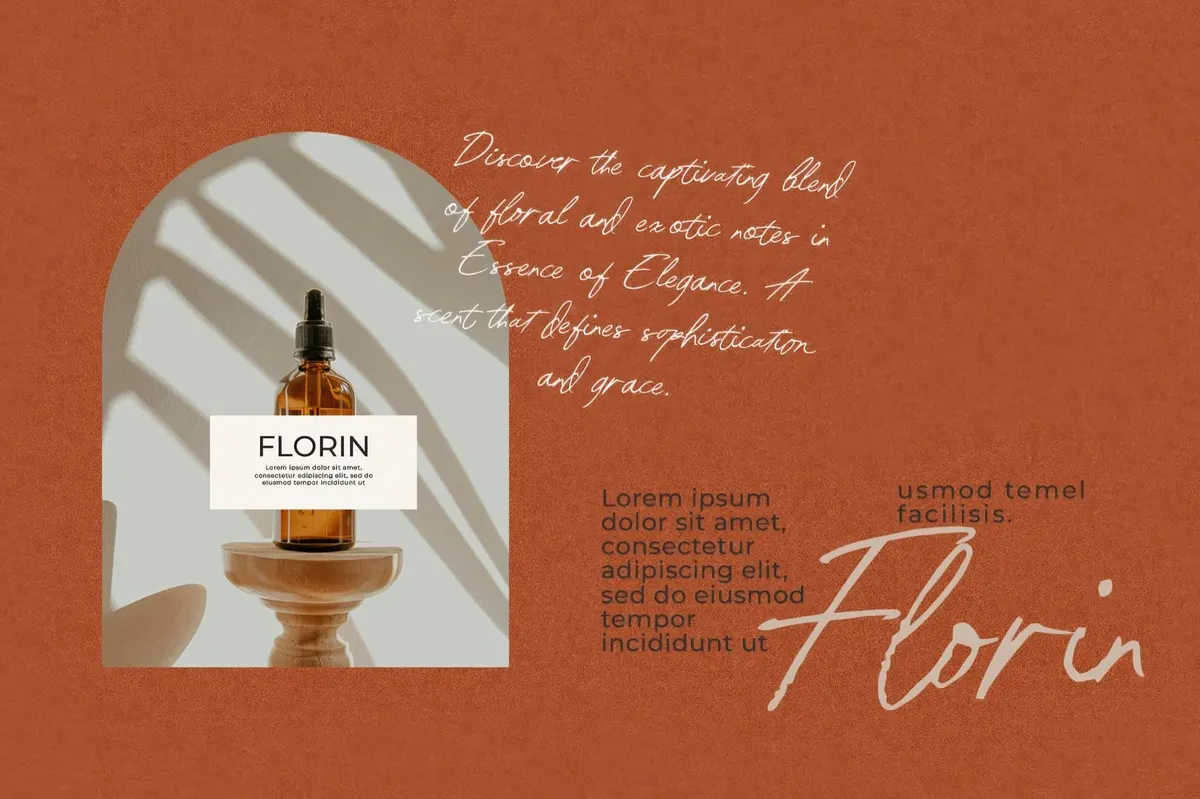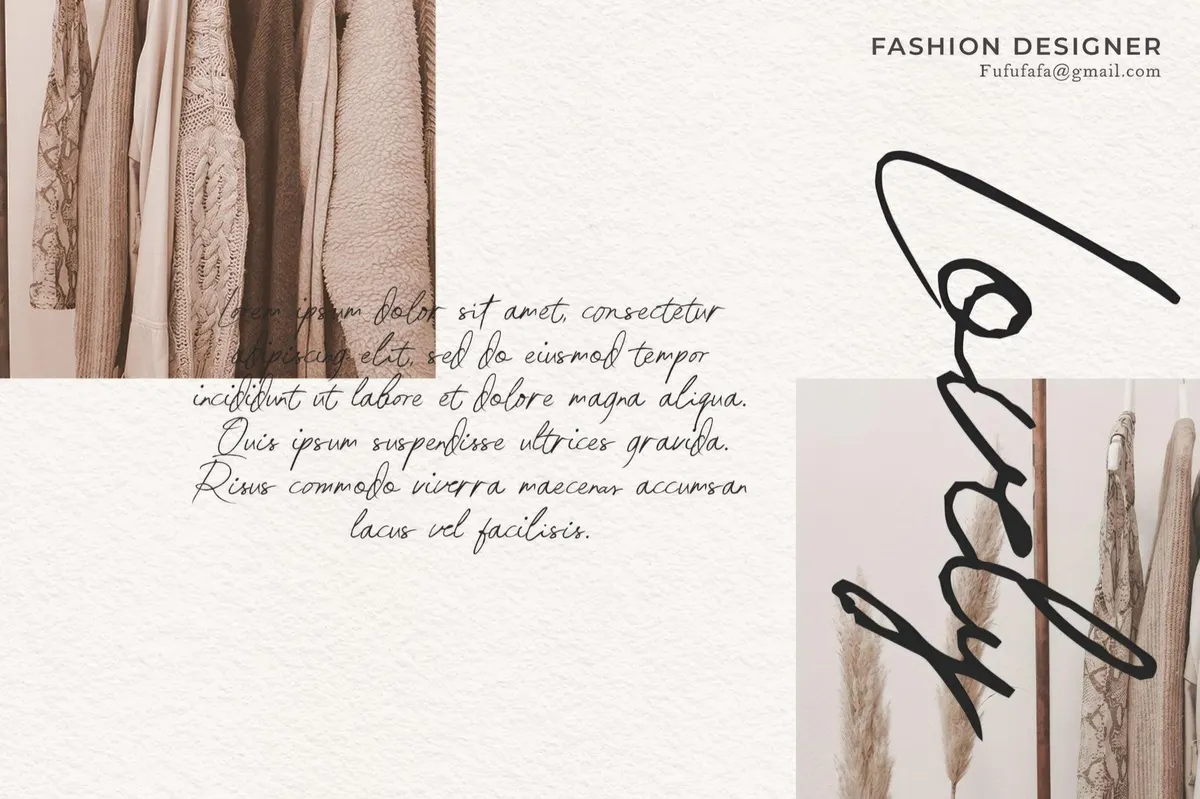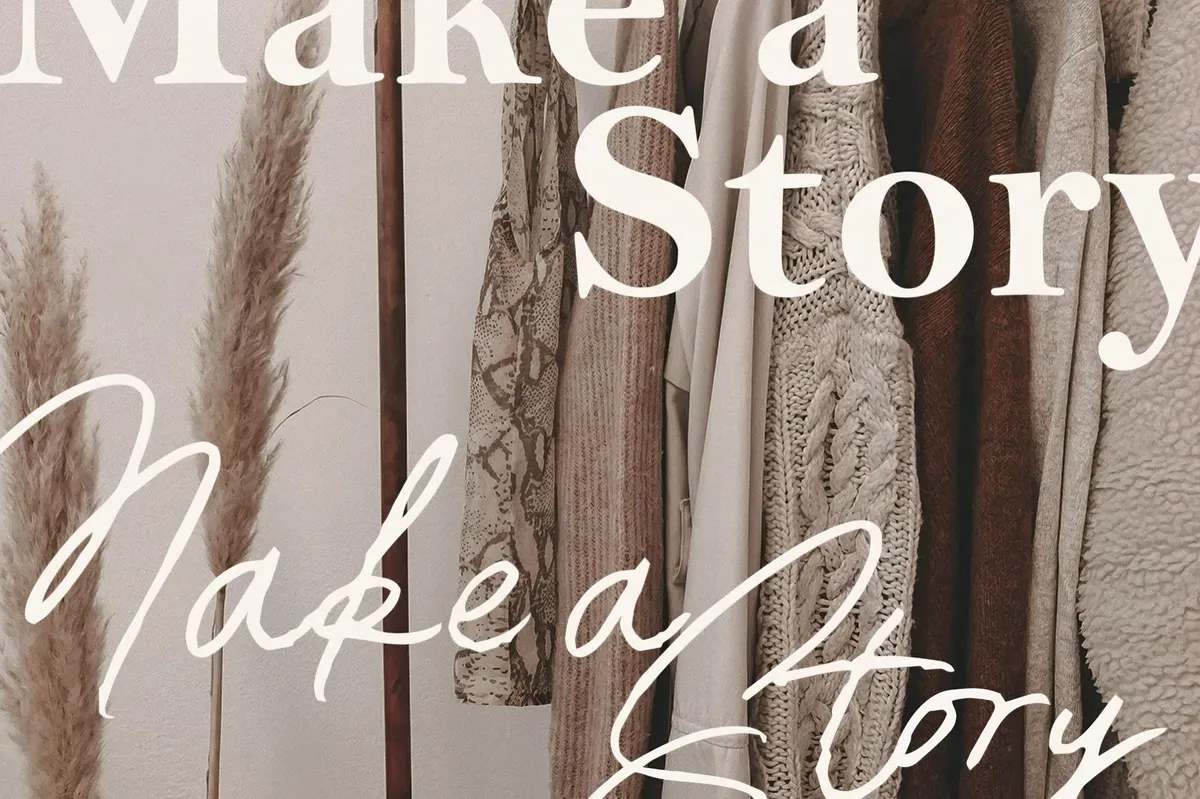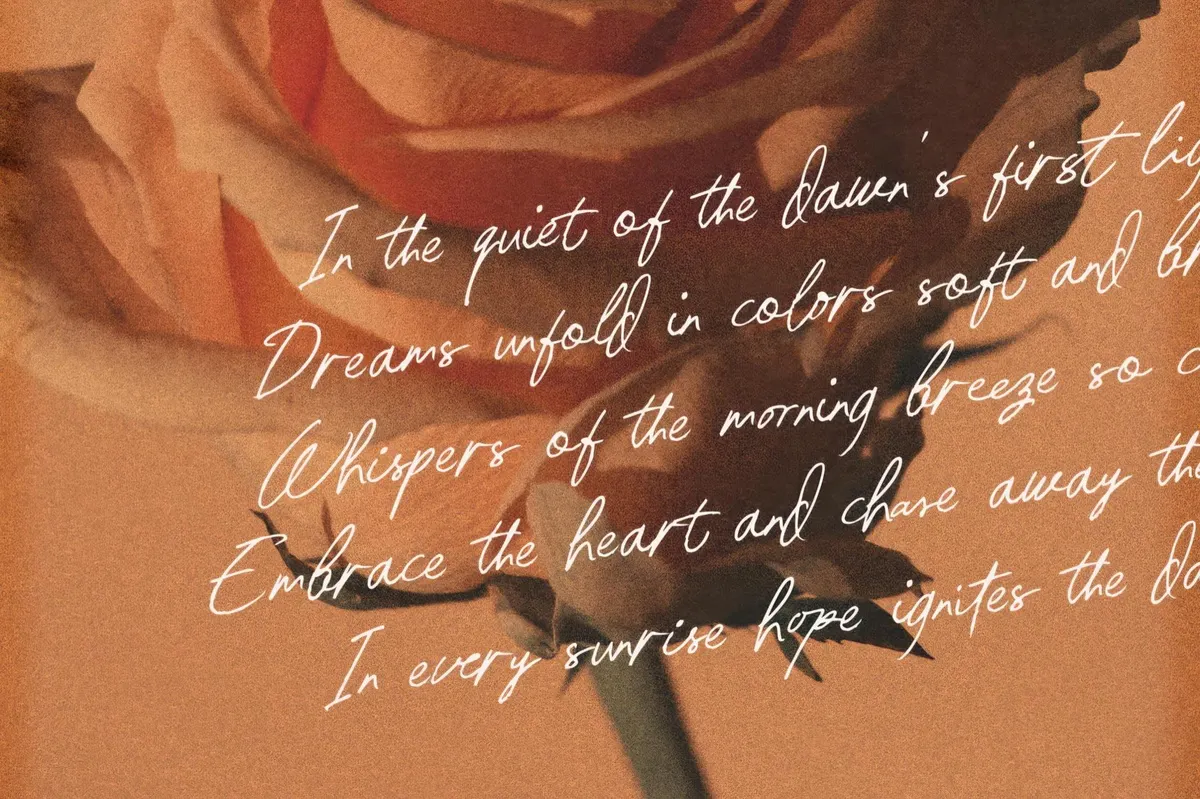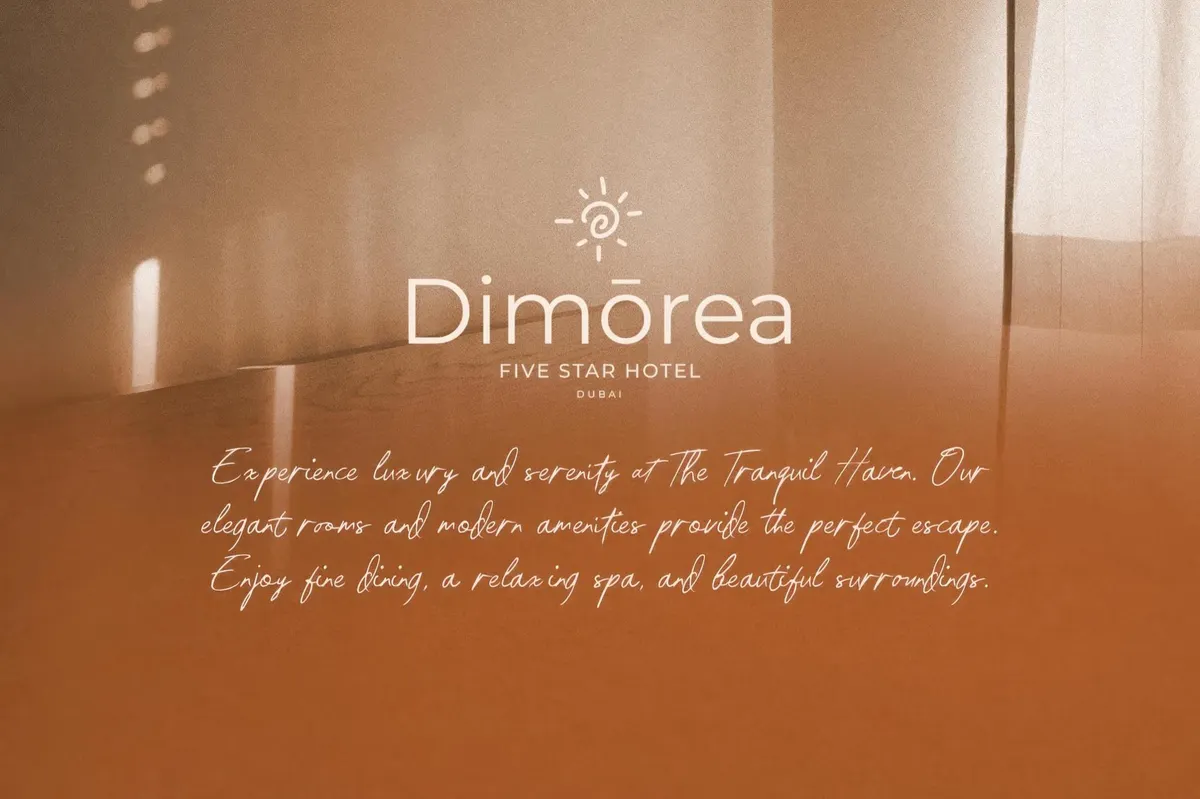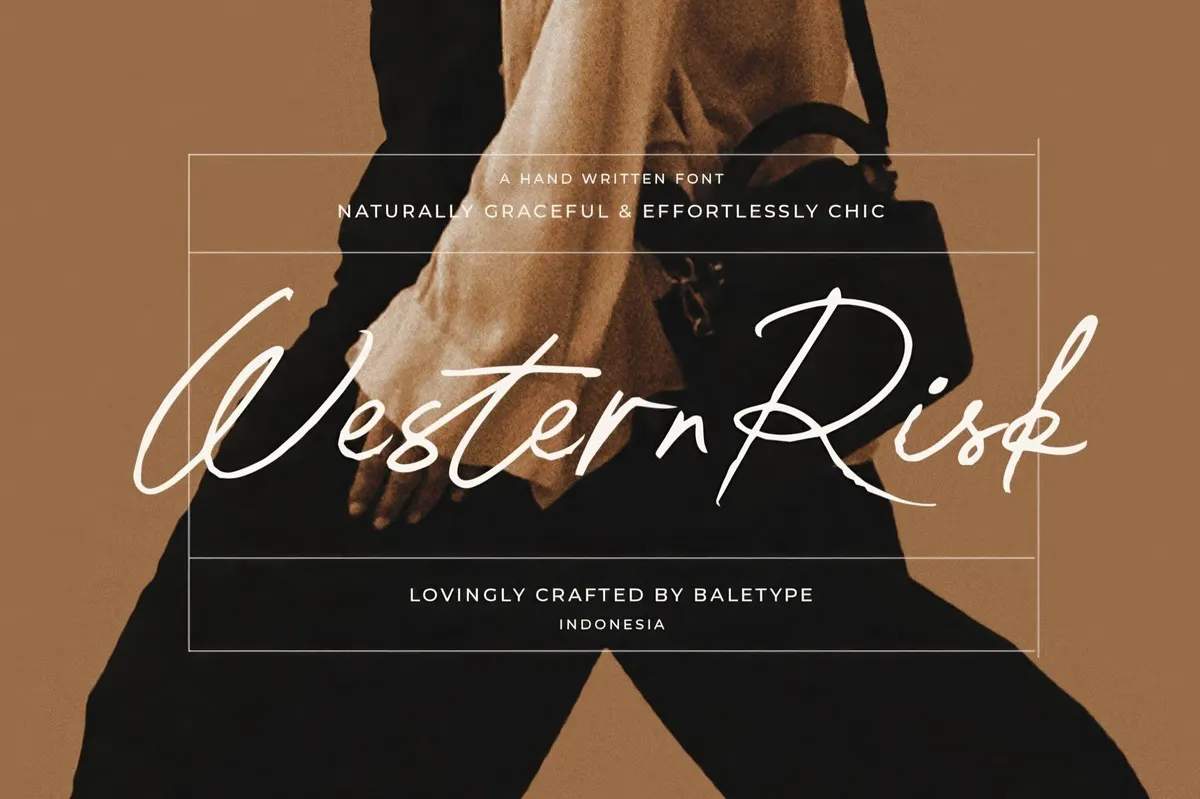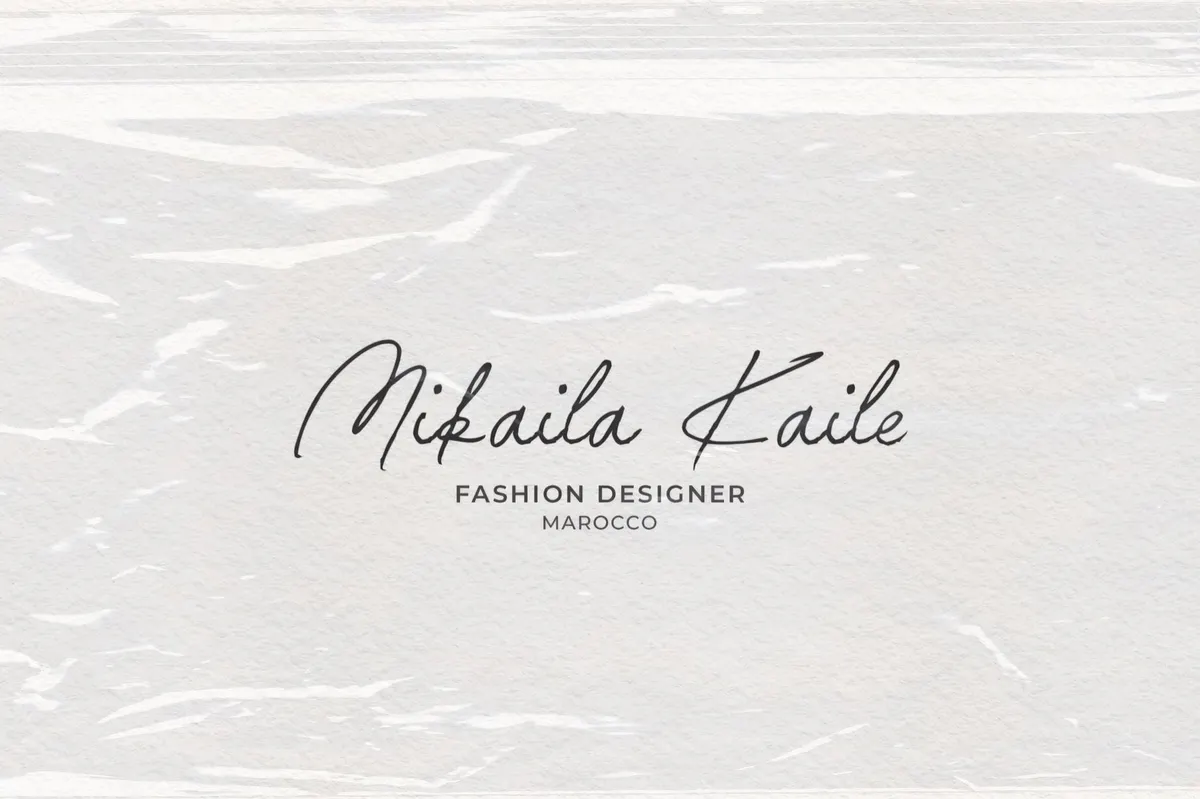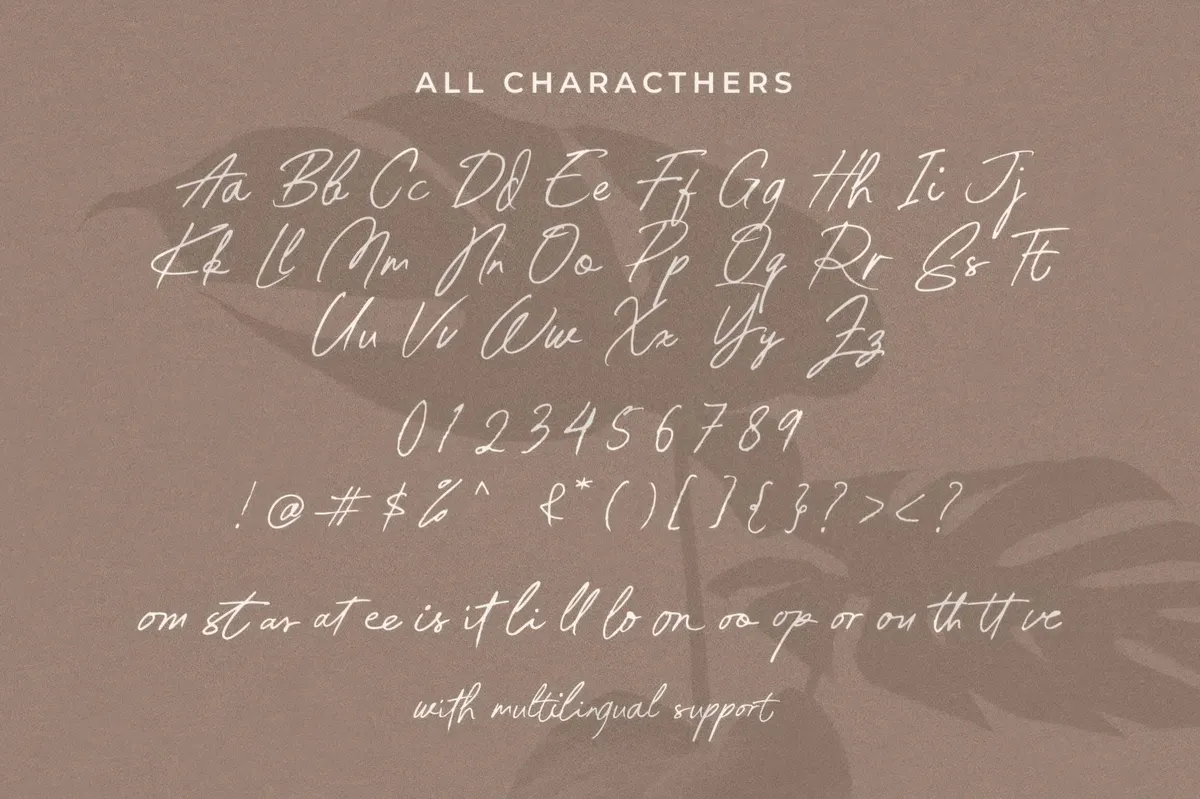
Western Risk — Handwritten Script
Handwritten Script
Western Risk is a handwritten script typeface with an elegant, chic aesthetic. It features fluid, natural strokes that mimic authentic handwriting, making it ideal for branding, fashion editorials, luxury packaging, and wedding/event invitations.
The style balances casual and refined, and with an extended character set, you can make up any message with the most emotional and classy twist. Western Risk indeed has it all: uppercase & lowercase letters, ligatures, numerals & punctuation, multilingual support, special characters & symbols.